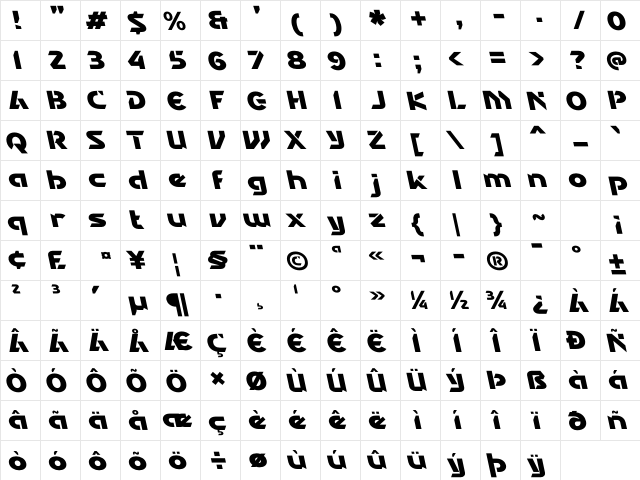
Robotic Cyborg Back Italic Regular
Design Context for Robotic Cyborg Back Italic Typeface
Robotic Cyborg Back Italic is a composed and adaptable typeface that performs quietly and consistently across a wide range of design contexts. The dynamic lean of this cut emphasises speed and emphasis in any layout.
Pro Tip: Try Robotic Cyborg Back Italic for annotation and caption copy alongside an upright companion — the contrast in angle creates a dynamic but ordered typographic system.